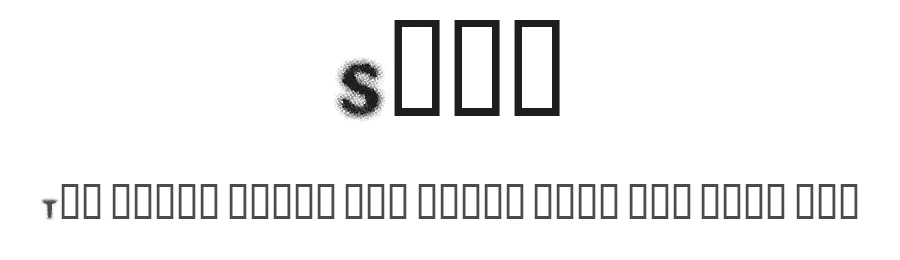
About Goudy Initialen Font
Goudy Initialen is a decorative font designed by Dieter Steffmann. It includes 31 glyphs, a regular weight, and TTF (TrueType) format. Goudy Initialen is free to download; check the license details on this page before commercial use. Decorative fonts like Goudy Initialen work best for logos, posters, packaging, and standout headlines.
| Designer | Frederic W. Goudy |
Goudy Initialen Font is a decorative font that shines as a display or heading face. Pair it with a clean sans-serif or serif font for body text β the contrast creates a clear hierarchy while the two styles stay balanced and easy to read.
Goudy Initialen Font
Goudy Initialen Font is a decorative typeface by Dieter Steffmann, ideal for logos, invitations, branding, and creative projects.